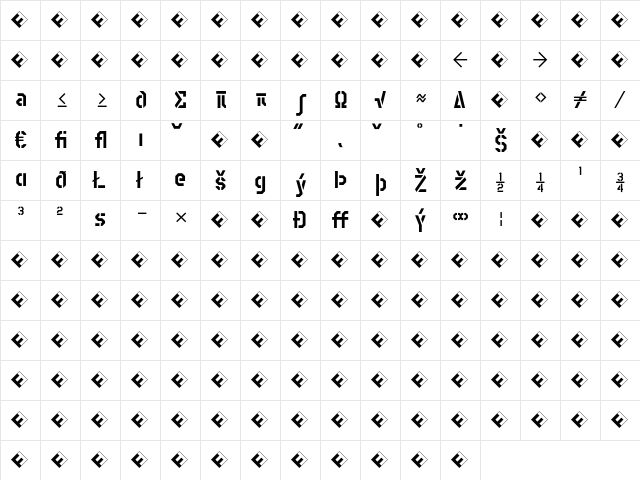
Container RegularExpert
Design Context for Container Typeface
Container offers clean, dependable letterforms without strong stylistic allegiance, making it a practical choice for designers who need flexibility.